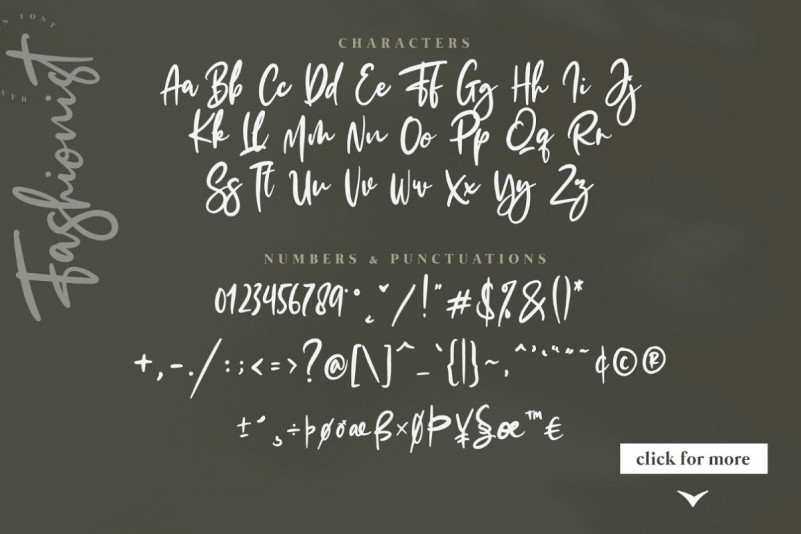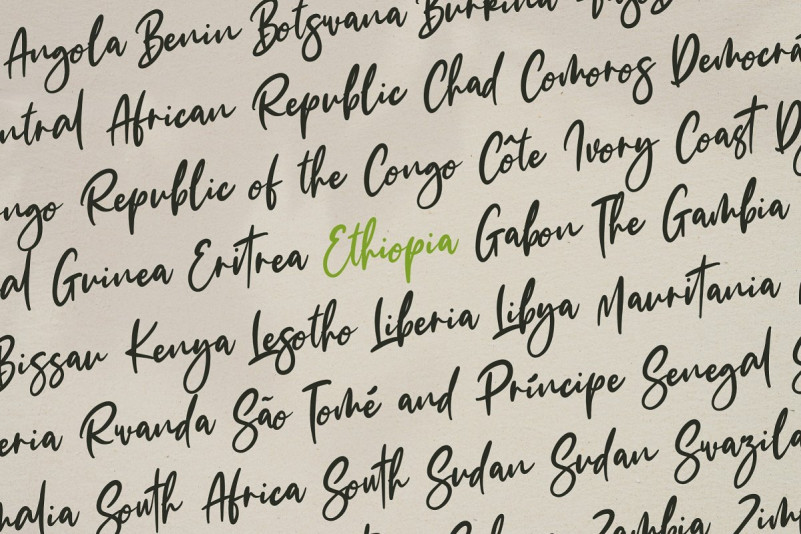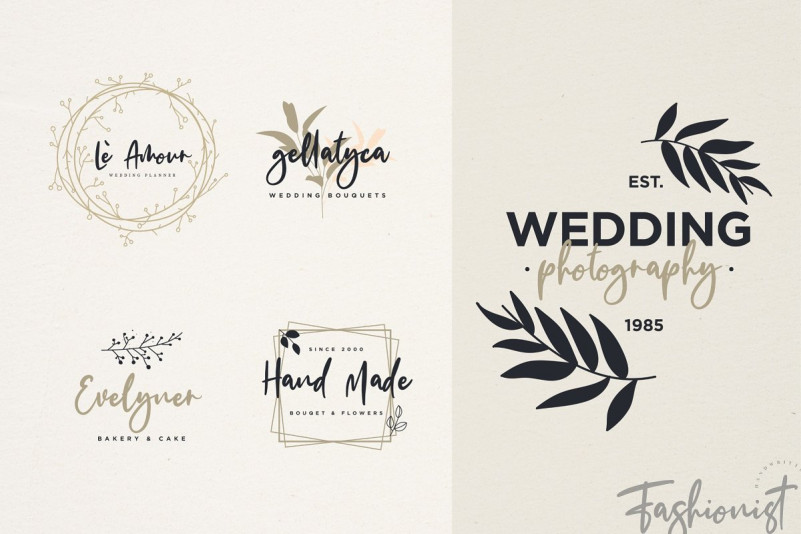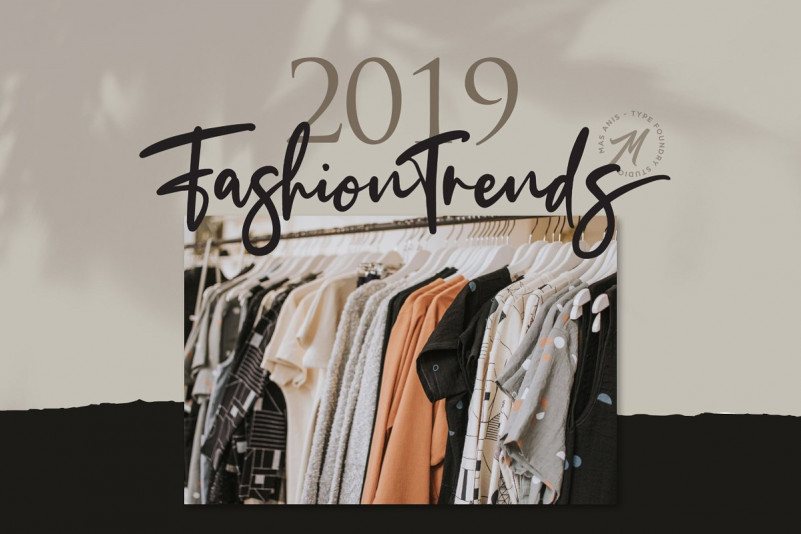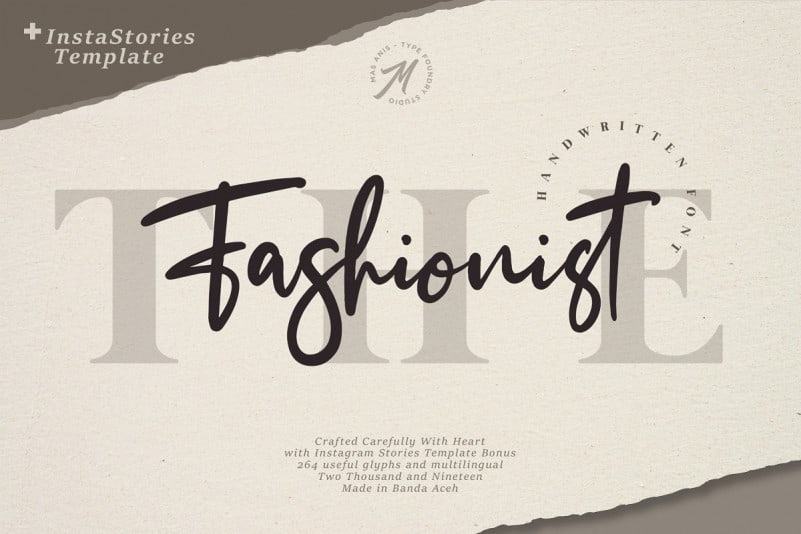
The Fashionist Font
The Fashionist – Demo Font
This a signature handwritten typeface with organic script inspired by our own handwritten. The font brings the original, natural and rough touch like your true hand-write! Introducing Fashionist Font! It’s a natural handwritten font, this font Is perfect for logo, invitation, stationery, wedding designs, social media posts, advertisements, product packaging, product designs, label, photography, watermark, special events or anything.